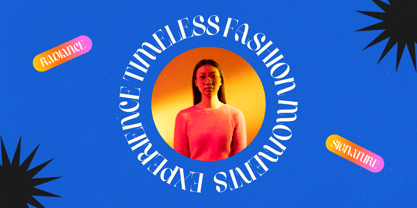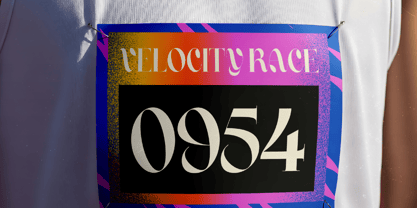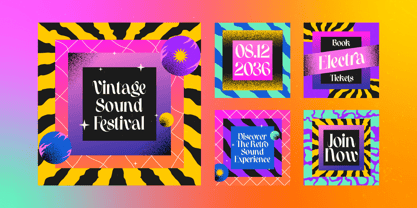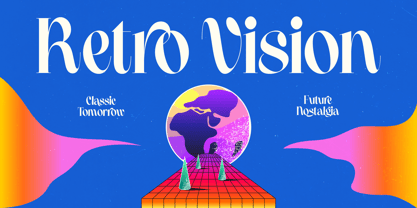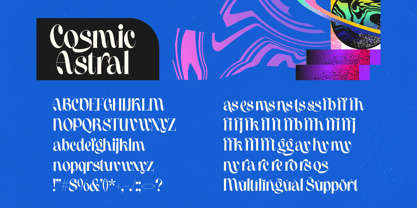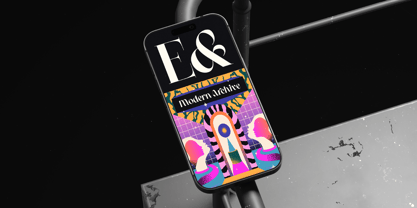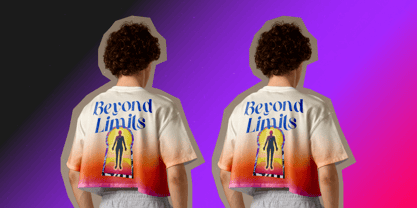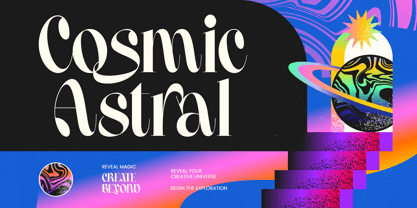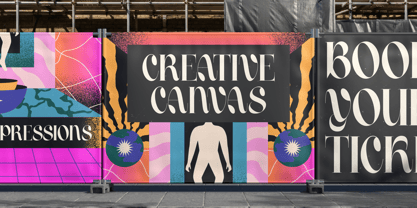
Cosmic Astral
La familia tipográfica Cosmic Astral fue diseñada por Heru Utama Putra y publicada por Timelesstype Studio. Cosmic Astral contiene 2 estilos y opciones de paquete familiar. Más información sobre esta familia
Cosmic Astral - High Contrast Serif. This typeface represents a masterclass in modern typography, blending dramatic stroke contrast with fluid, organic curves. By balancing sharp serifs with graceful ligatures, Cosmic Astral - High Contrast Serif offers a unique aesthetic that is both timeless and contemporary, ideal for a high-end visual impact.
Discover the perfect typographic solution for luxury branding. Cosmic Astral - High Contrast Serif is perfect for premium packaging, editorial design, and high-fashion advertisements. Whether crafting a sophisticated logo or glossy layouts, this font delivers a bold presence and exclusivity. It is a versatile asset for any professional seeking to produce world-class design.